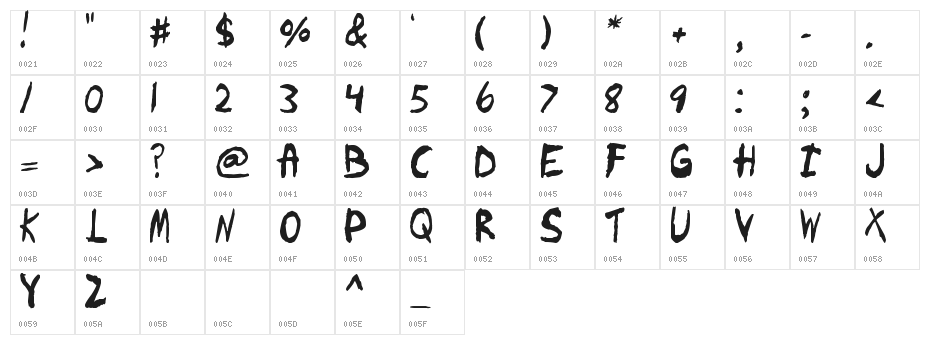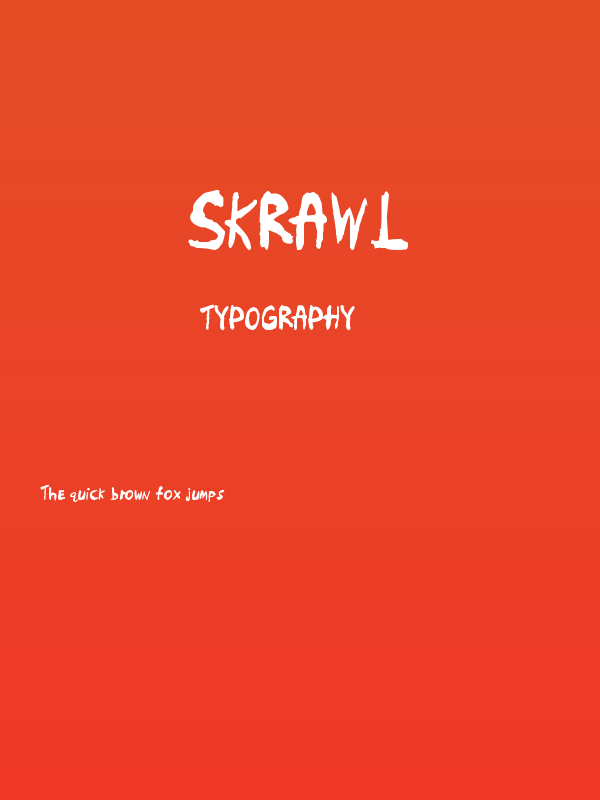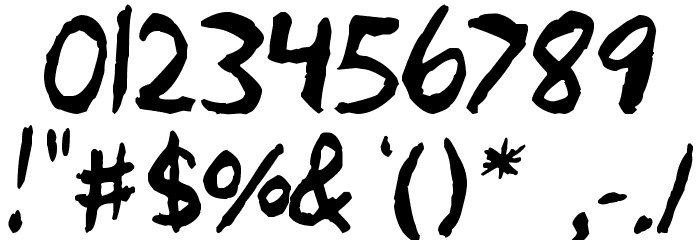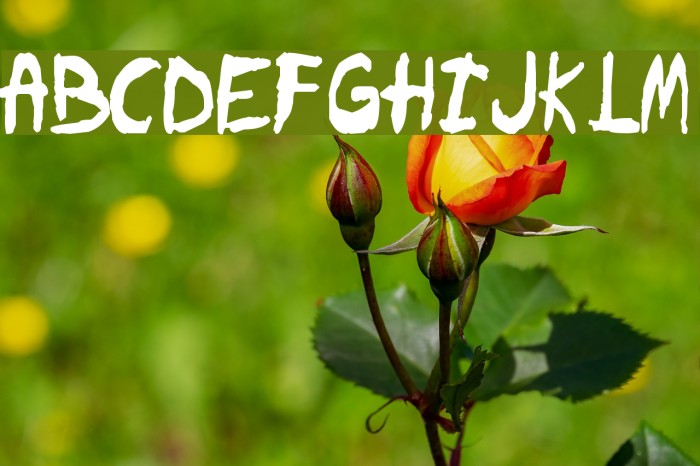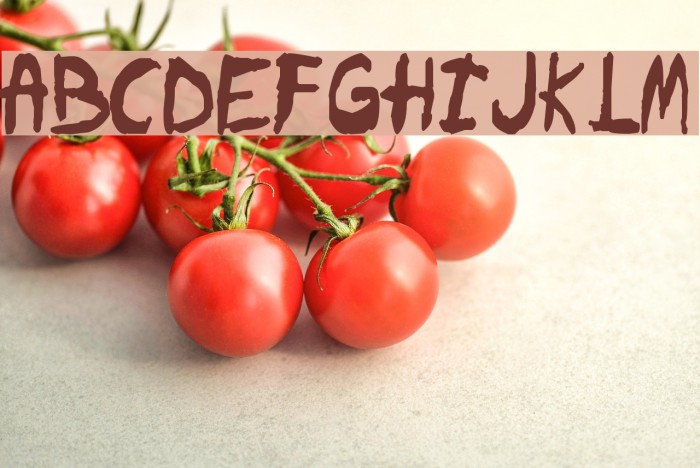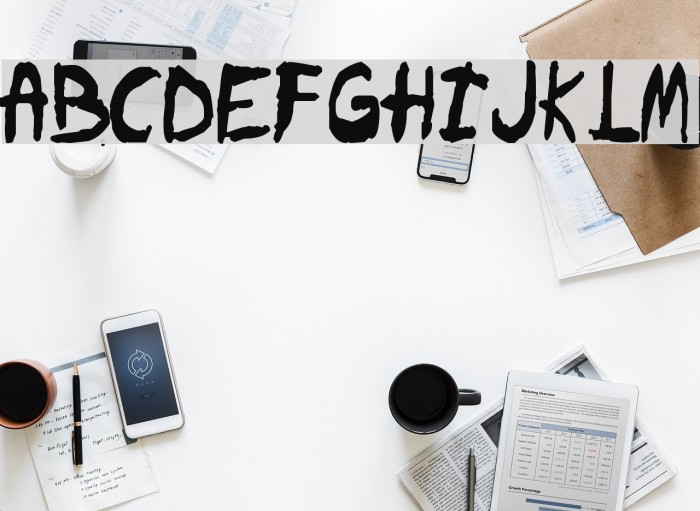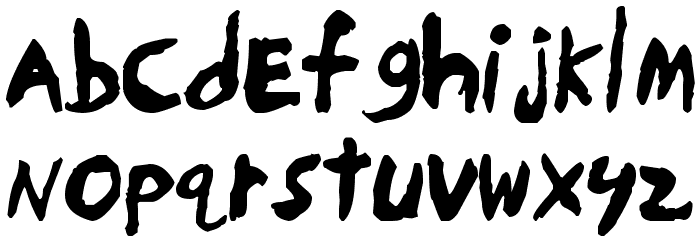
Skrawl Font
Skrawl Description
This font exudes a raw, hand-drawn aesthetic, characterized by its bold and uneven strokes that mimic the appearance of brush or marker writing. The letters are irregular, with varying thickness and a slightly jagged edge, giving it a spontaneous and energetic feel. The uppercase and lowercase letters maintain a consistent style, while the numerals and special characters integrate seamlessly with the overall design. This font's organic and unrefined look makes it ideal for projects that require a personal touch or an informal vibe.
| Proposed Projects | Ideal for artistic projects, informal branding, posters, and creative invitations. |